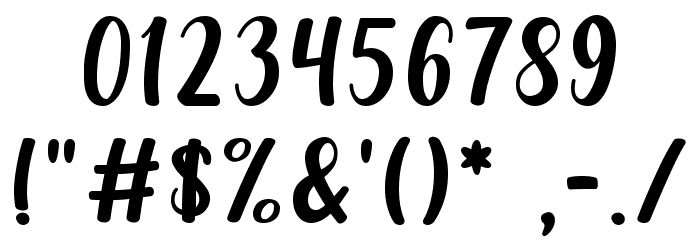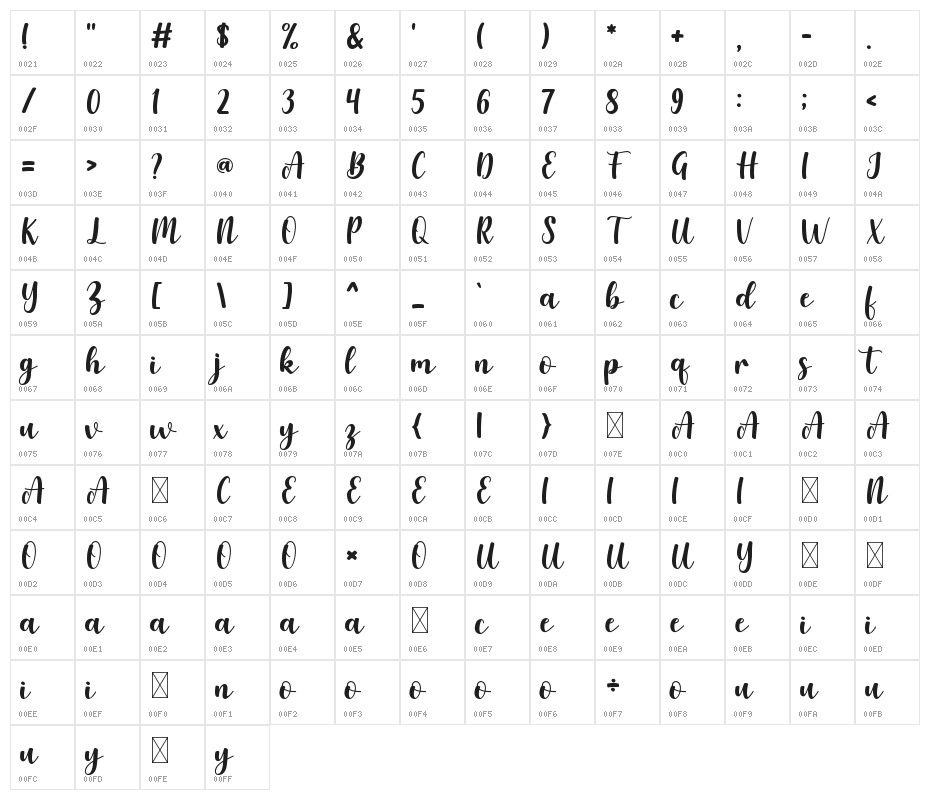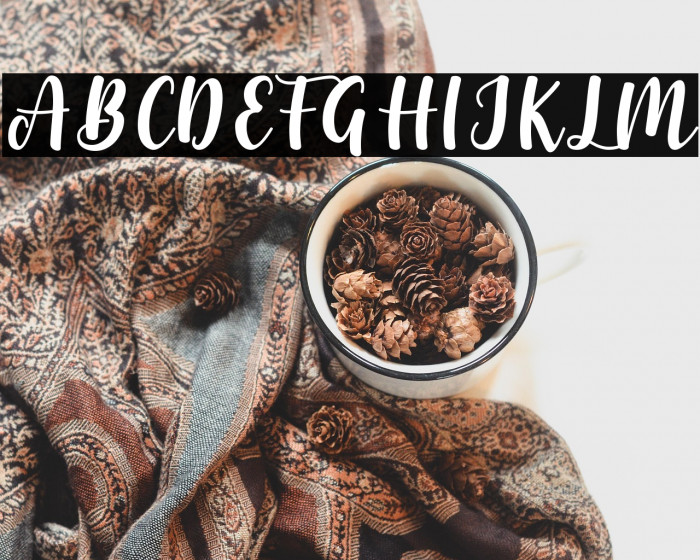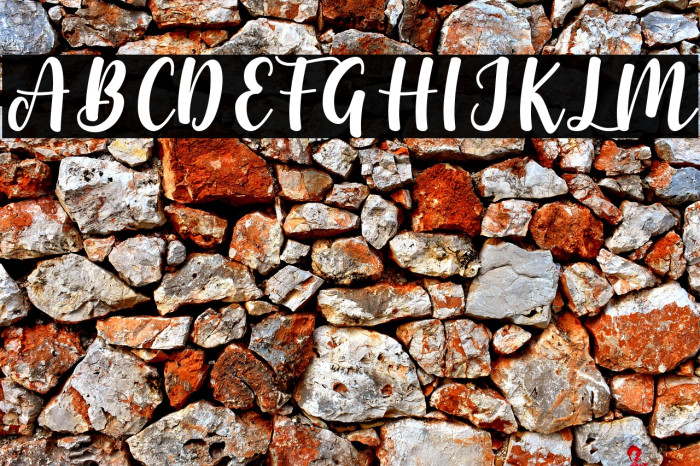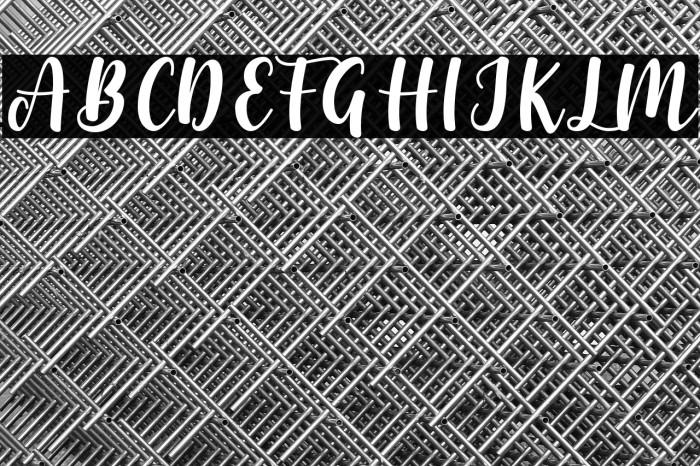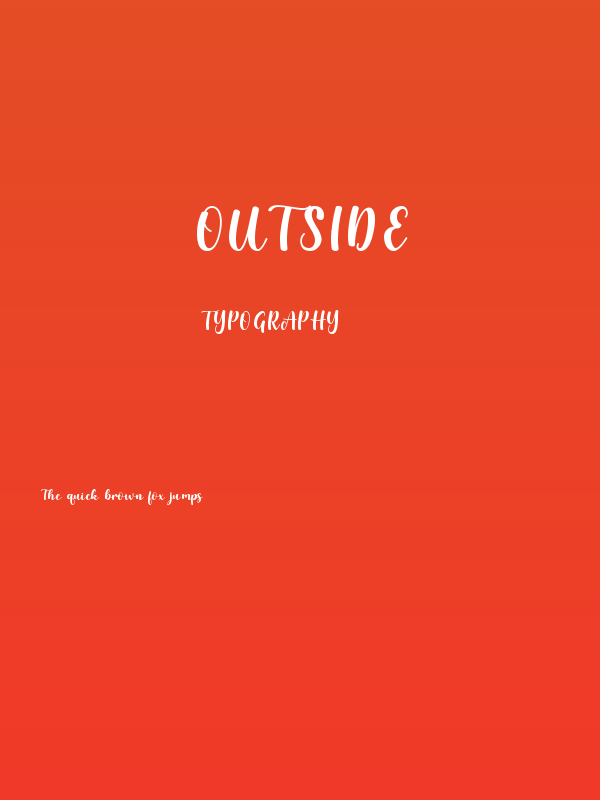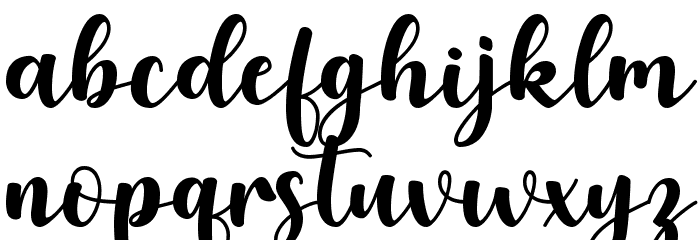
Outside Font
Outside Description
This font features a lively and flowing script style, characterized by its smooth, cursive strokes and elegant loops. The uppercase letters are bold and slightly slanted, giving a sense of movement and grace. The lowercase letters maintain a consistent flow, with each character seamlessly connecting to the next, enhancing the script's fluidity. Numbers and special characters are designed to match the overall style, with rounded edges and a playful touch. This font exudes a sense of creativity and warmth, making it ideal for projects that require a personal and artistic touch.
| Proposed Projects | Ideal for wedding invitations, greeting cards, branding, and artistic projects. |